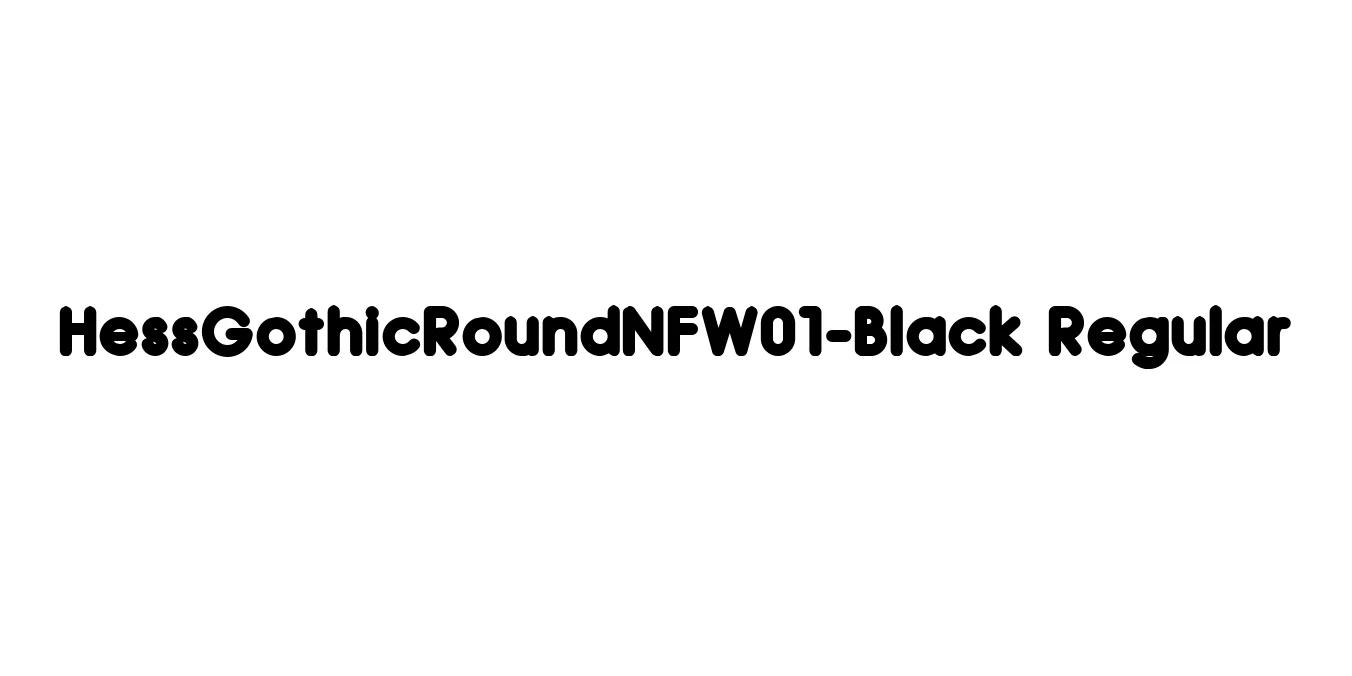
HessGothicRoundNFW01-Black Regular
Designed by Sol Hess (Original), Nick Curtis (Digital Version)
HessGothicRoundNFW01-Black Regular is a digital revival of a classic typeface originally conceptualized by the renowned American type designer Sol Hess for the Lanston Monotype Machine Company in the early 20th century. This specific interpretation, refined by Nick Curtis, breathes new life into the traditional Gothic structure by softening its sharp terminals with a distinct rounding. The 'Black' weight offers a powerful, high-contrast presence that maintains an approachable and friendly aesthetic through its smooth, geometric curves.
Throughout its history, the font has been celebrated for bridging the gap between industrial strength and modern warmth. The Hess Gothic Round style is particularly noted for its legibility in display formats, making it a staple for advertising and corporate branding. Its robust architecture and generous letter spacing allow it to stand out in large-scale applications such as signage and posters, providing a vintage yet timeless look that appeals to contemporary designers seeking a bold typographic voice.
HessGothicRoundNFW01-Black Regular Best Uses
Perfect for creating friendly, modern brand identities that require a bold and authoritative yet soft touch.
Ideal for high-impact titles in posters, magazines, and digital web banners.
Highly legible for physical store signs and large-scale environmental graphics.
Excellent for consumer goods packaging where a sense of reliability and approachability is needed.